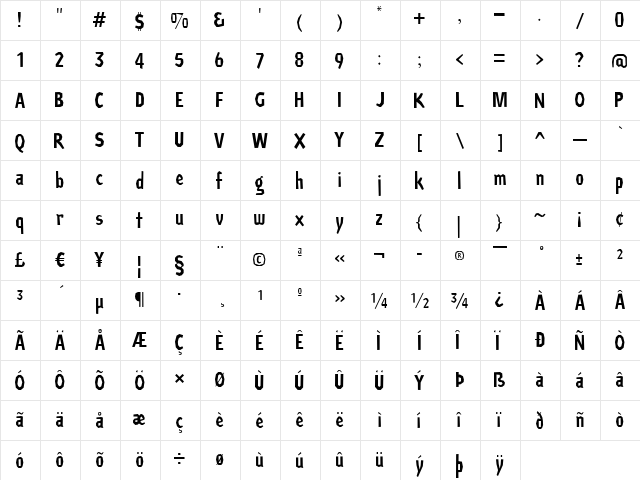
PAtronne Maigre
Design Context for PAtronne Typeface
PAtronne is a composed and adaptable typeface that performs quietly and consistently across a wide range of design contexts.